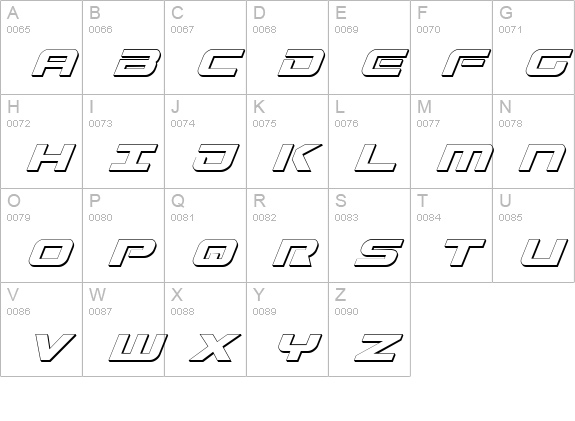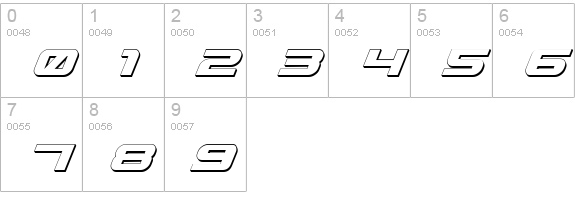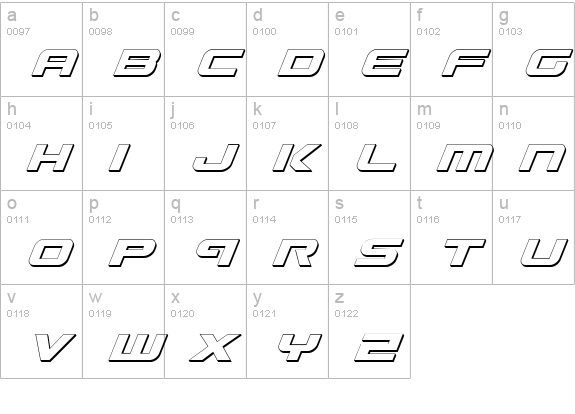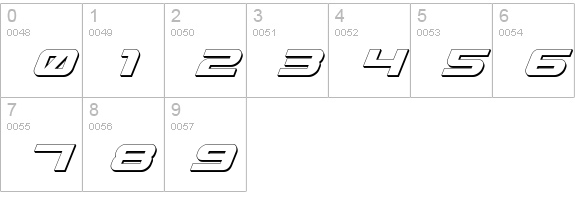
Gunship Shadow Ital font is a bold and striking typeface that exudes power and strength. Its sharp edges and unique design make it perfect for headlines, titles, and other display purposes. The italicized version adds a touch of elegance and sophistication to any project. Best of all, Gunship Shadow Ital font is available for free download at FontsMarket.com. This means you can easily access this eye-catching font to elevate your designs without any cost. Don't miss out on the opportunity to add this versatile typeface to your collection and make a lasting impression with your work.